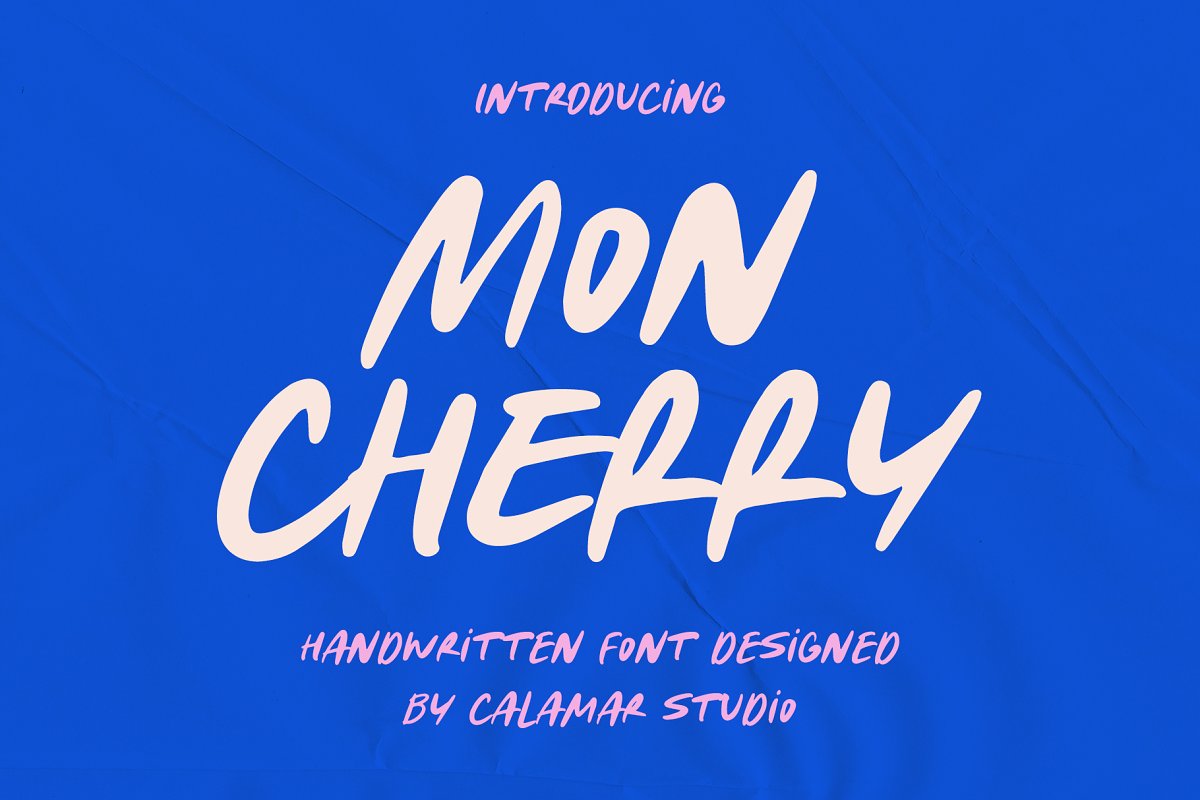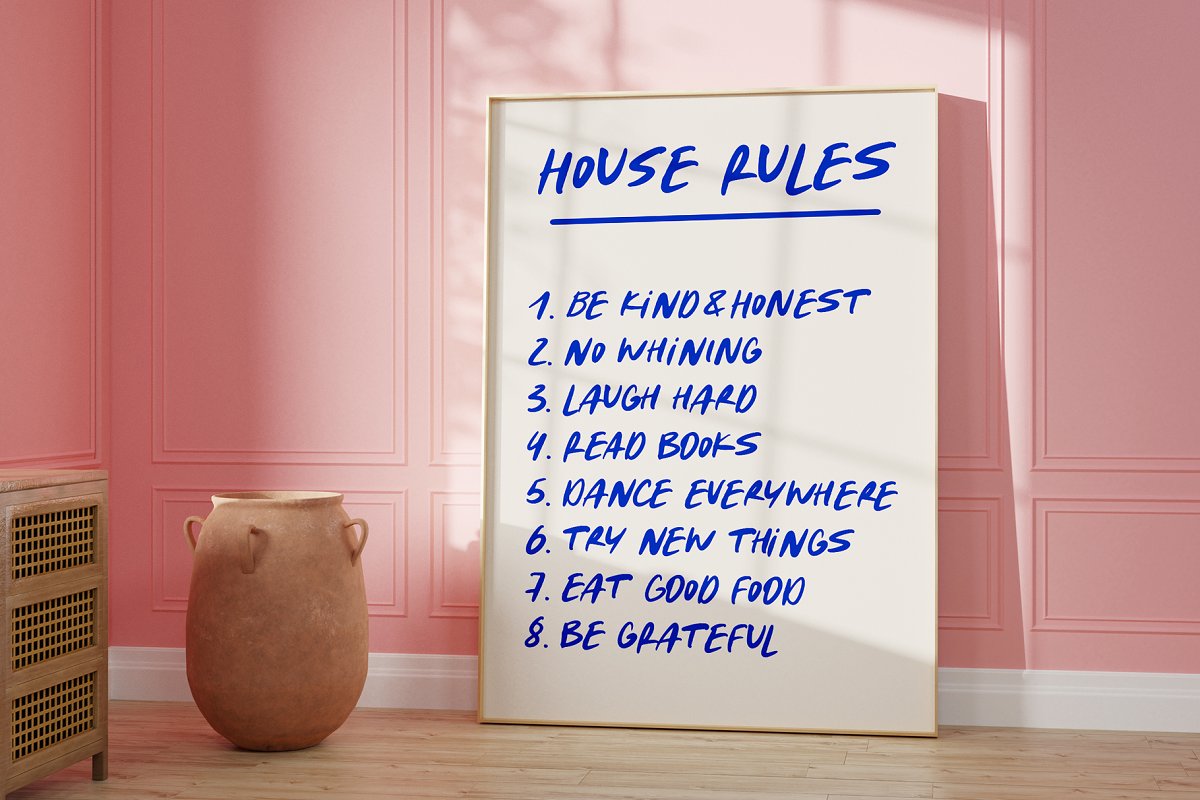
About the Mon Cherry | Handwritten Groovy Font
Handwritten Groovy Font – Mon Cherry, It will look great for greeting cards, stickers, instagram posts, quotes, playful branding, You don’t need any special programs to use this font, All is super easy, Just type the lower or uppercase letters and create your design, You’ll get in zip file:Mon Cherry (OTF, TTF)How to Instal Font (PDF)Thanks so much for checking out my shop!~ Oksana